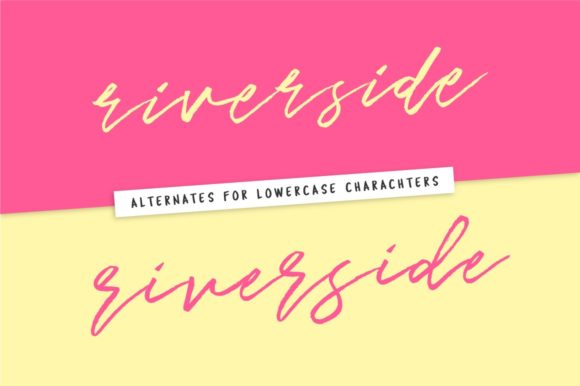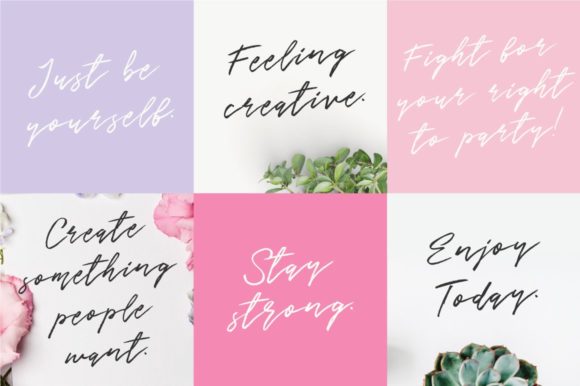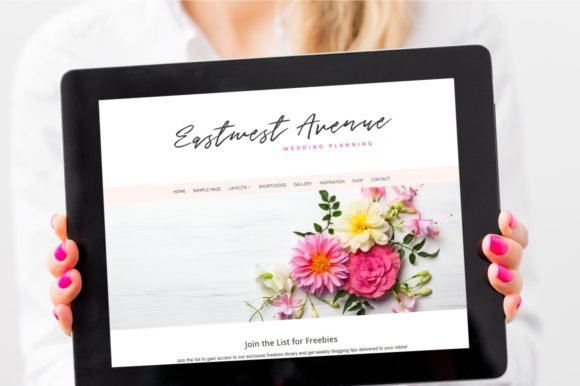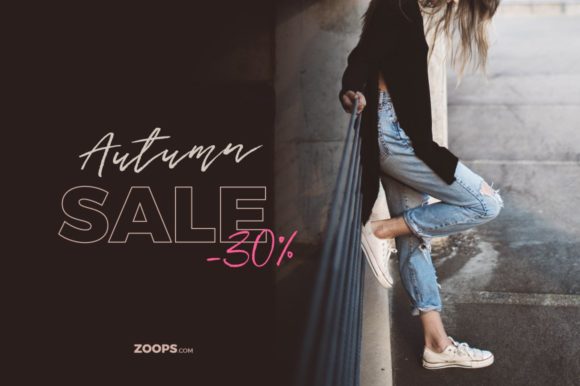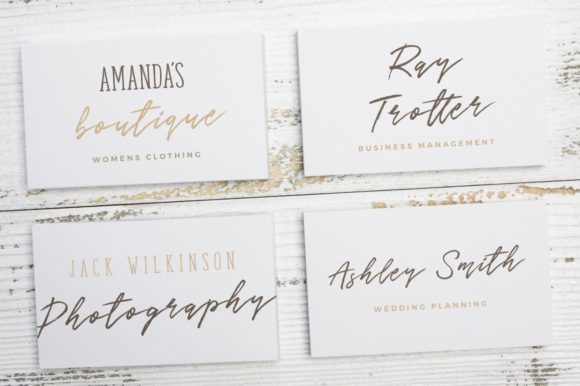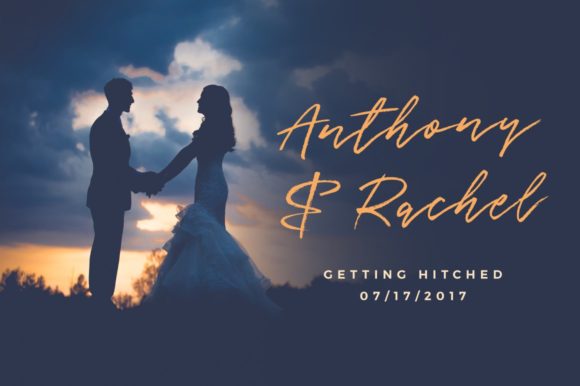
Riverside Avenue Font
About Riverside Avenue Font
Riverside Avenue is a sweet and charming script font, perfectly suited for adding an authentic touch to any creative idea.